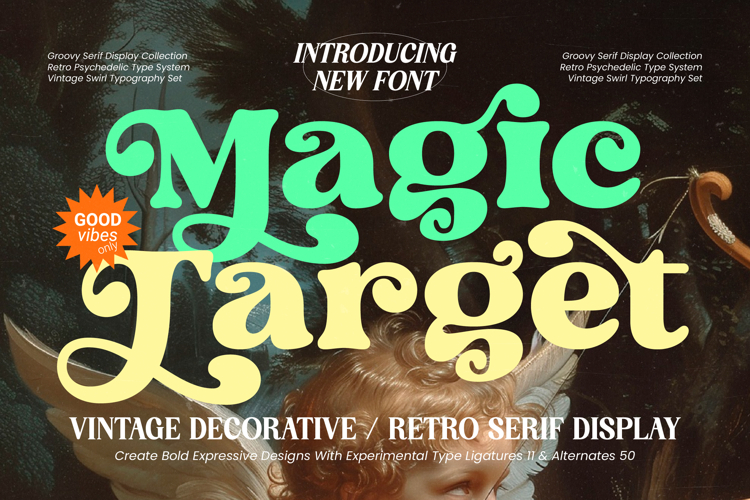
Magic Target Retro Serif Display
Magic Target, a typeface designed to captivate and inspire. This font blends the whimsical energy of the past with a sophisticated contemporary edge that commands attention instantly.
Drawing inspiration from the kaleidoscopic dreamscapes of the late 1960s and early 70s, this collection evokes the spirit of vintage rock posters and psychedelic art. It channels the good vibes era through fluid curves and dramatic swirls that feel both mystical and groundedly classic.
This typeface delivers a powerful modern serif display aesthetic, perfect for those seeking luxury typography with a playful twist. With its high-contrast serif construction and unique silhouettes, it functions as a premium editorial font designed for maximum branding impact in any high-end project.
As the modern serif trend continues to dominate the visual landscape, Magic Target stays ahead of the curve by offering editorial display fonts that lean into the maximalist aesthetic. It celebrates character-driven typography that breaks away from minimalist norms to offer something truly distinctive.